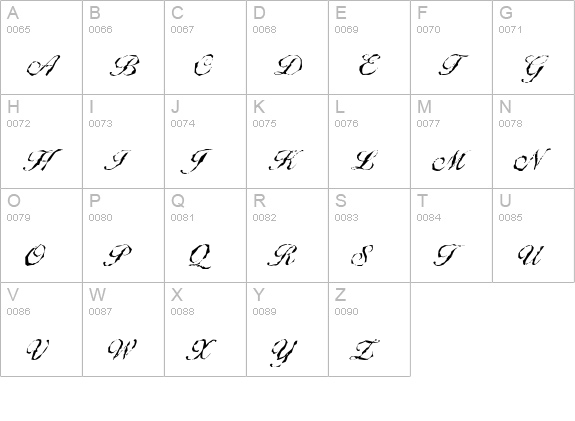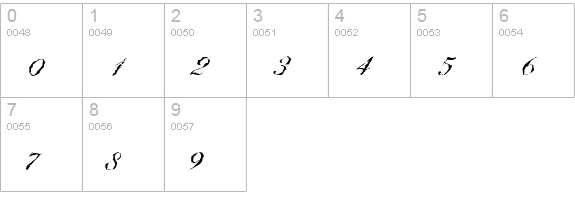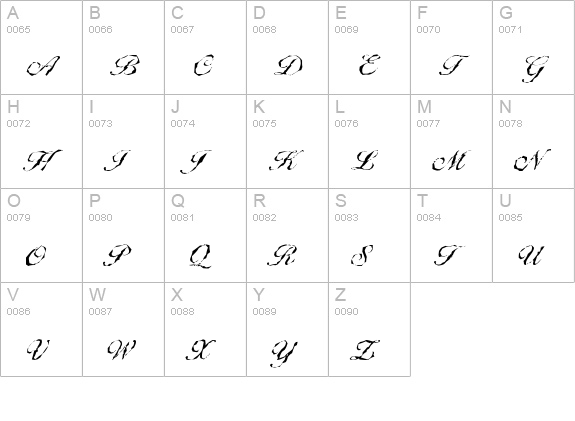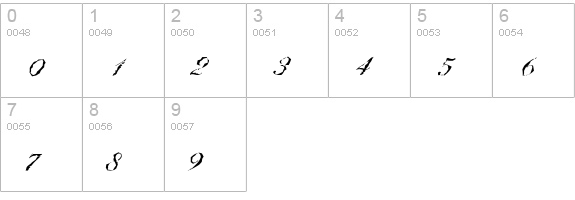
BallantinesRandom-Light-Regular is a refined, elegant variant in the BallantinesRandom typeface family \xE2\x80\x94 well suited to elegant body text, refined sub-headings, and luxury branding.
BallantinesRandom-Light-Regular is a versatile and modern font that exudes a sense of creativity and sophistication. With its clean lines and elegant curves, this typeface is perfect for a wide range of design projects, from branding to editorial design. The light weight of the font adds a delicate touch, making it ideal for creating a refined and sophisticated look. Best of all, BallantinesRandom-Light-Regular is available for free download at FontsMarket.com. Whether you're a designer looking to add a fresh new font to your collection or a business owner in need of a stylish typeface for your marketing materials, this font is sure to impress. Don't miss out on the opportunity to enhance your projects with this beautifully crafted font, freely available for you to download today.